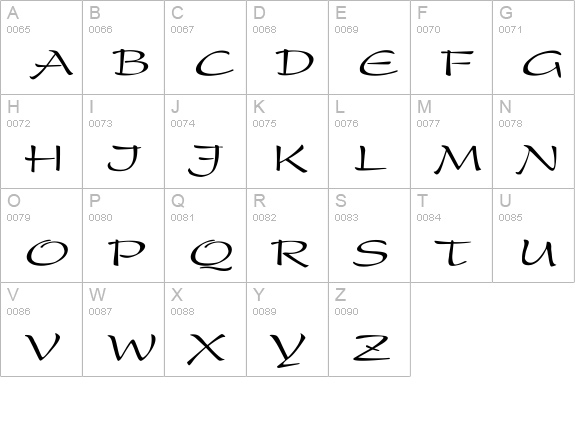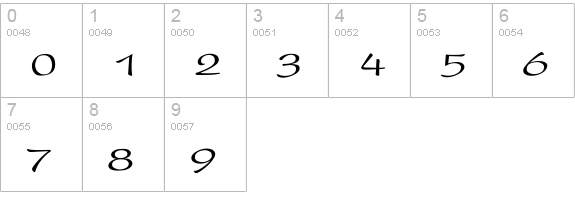
Present Wd font is a modern and elegant typeface that exudes sophistication and style. With its sleek lines and contemporary design, this font is perfect for a wide range of creative projects. Whether you're designing a sleek website, crafting eye-catching marketing materials, or creating stunning social media graphics, Present Wd font is sure to make a statement. What's even better is that Present Wd font is completely free! You can easily download this stylish font at FontsMarket.com and start using it in your projects right away. Don't miss out on this fantastic opportunity to enhance your designs with the sleek and stylish Present Wd font. Download it now and see the difference it can make in your creative work!